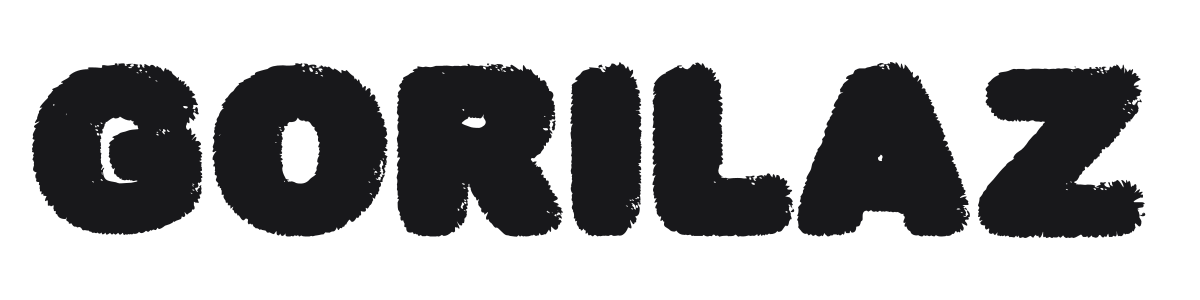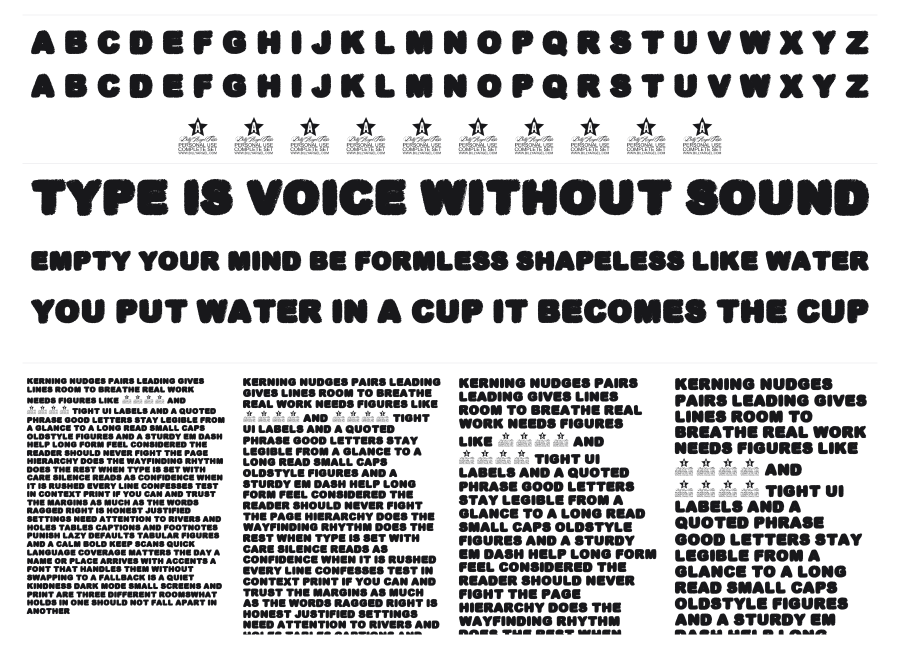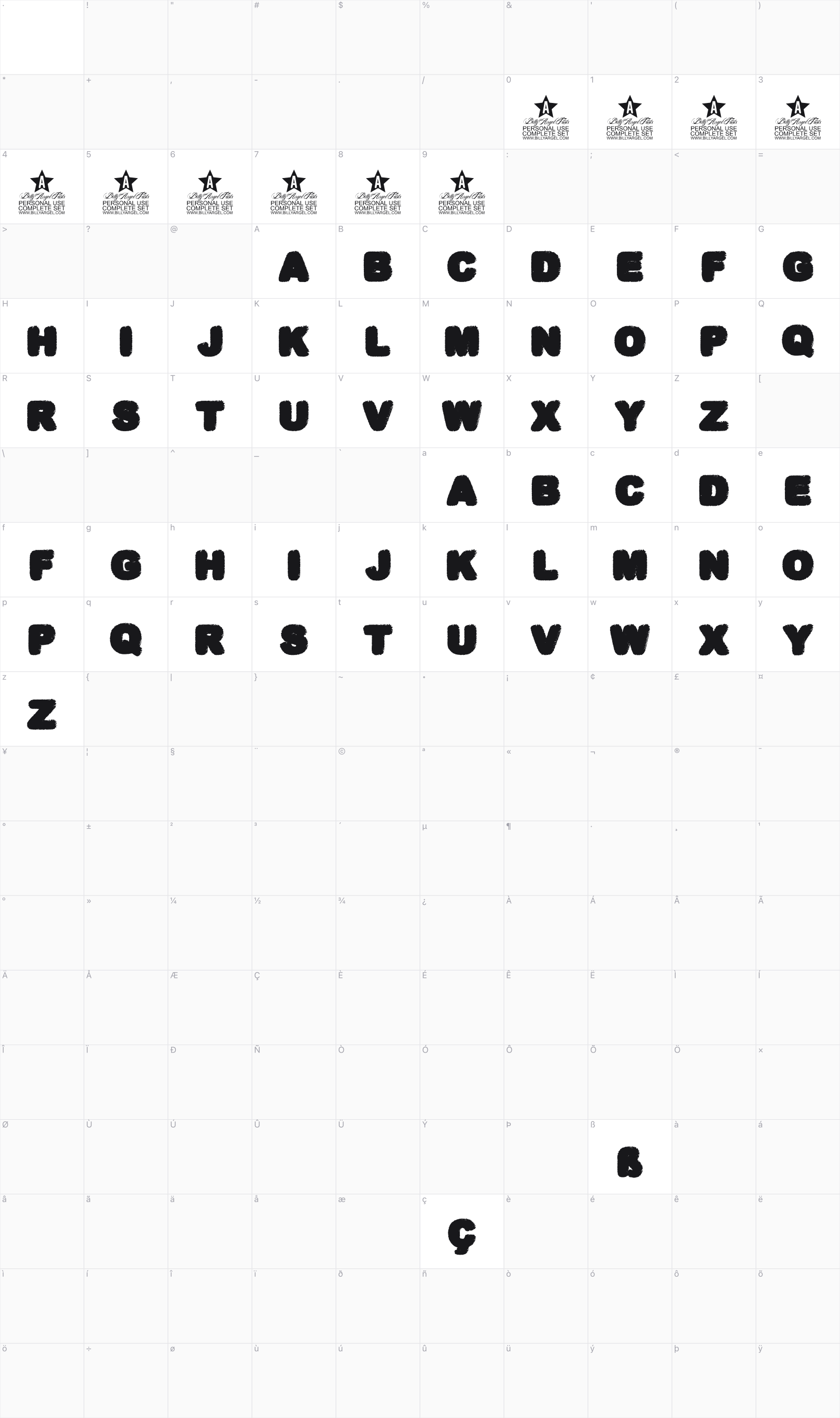
Gorilaz
GorilazLicense is a heavy, rounded display font coated in rough distressed texture that makes every character look worn and street-tested. The thick, near-monoweight strokes and wide proportions give it a bold presence at large sizes, while the eroded surface keeps it from feeling too clean or commercial. It has strong associations with music, urban culture, and anything that needs attitude.